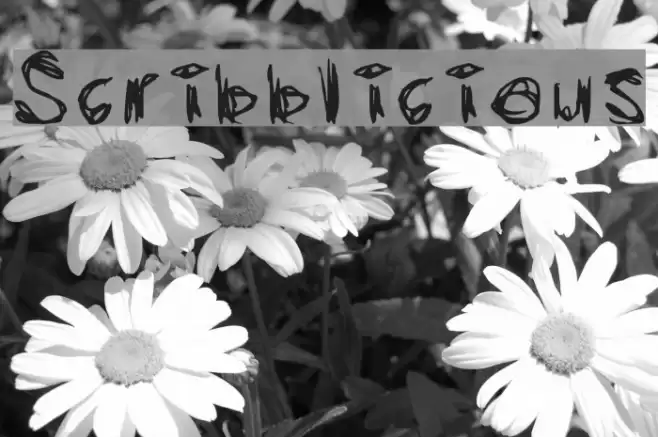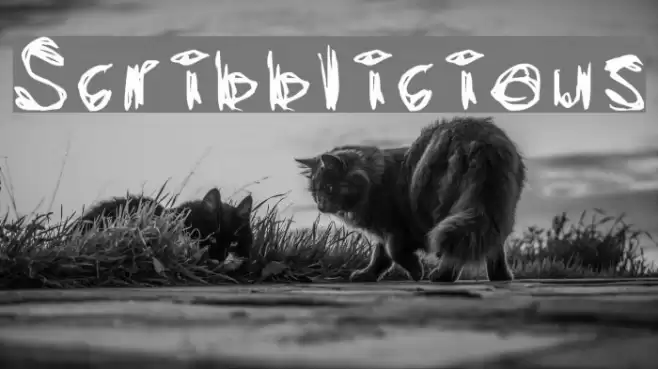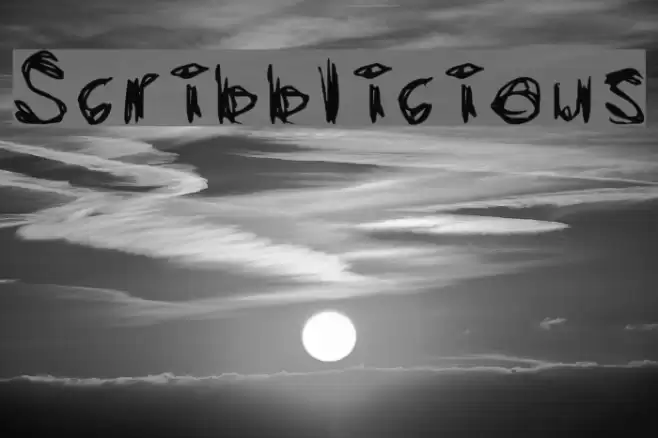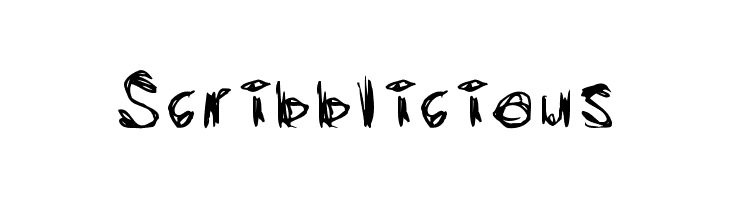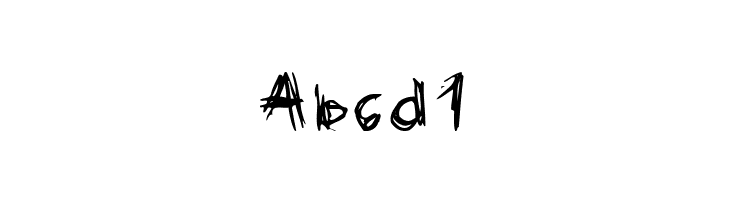
Scribblicious Font
Scribblicious Description
This font features a chaotic and energetic style, reminiscent of scribbles or graffiti. The letters are irregular and jagged, giving a sense of movement and spontaneity. Each character appears hand-drawn, with varying thicknesses and unpredictable angles, creating a dynamic and edgy appearance. The font's unique style makes it stand out, with a raw and unpolished aesthetic that conveys creativity and rebellion. It is suitable for projects that aim to capture attention and convey a sense of individuality and artistic flair.
A chaotic, hand-drawn font with a scribbled, graffiti-like style from Script fonts.
- Proposed Projects: Ideal for album covers, street art-inspired designs, edgy branding, and creative posters.
- Character Spacing: Wide